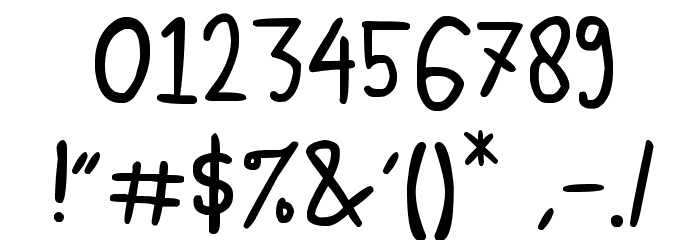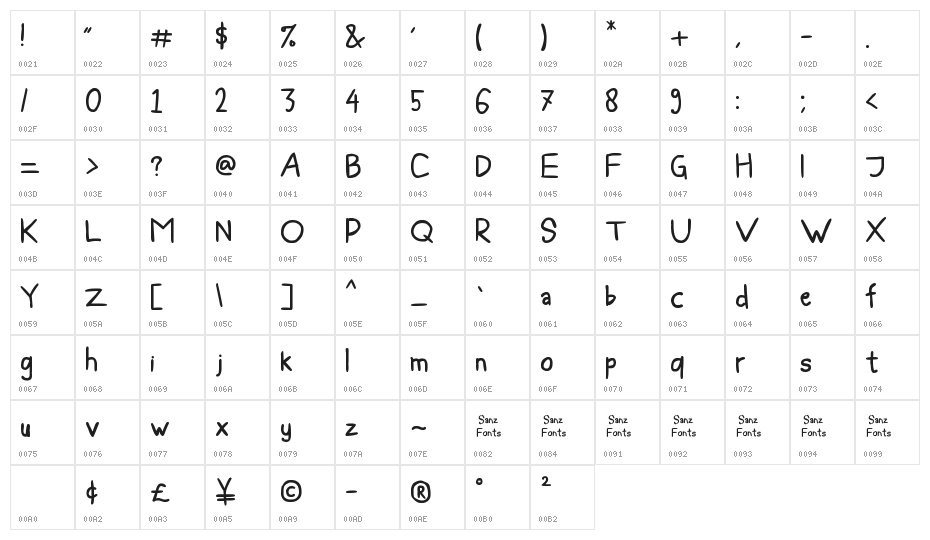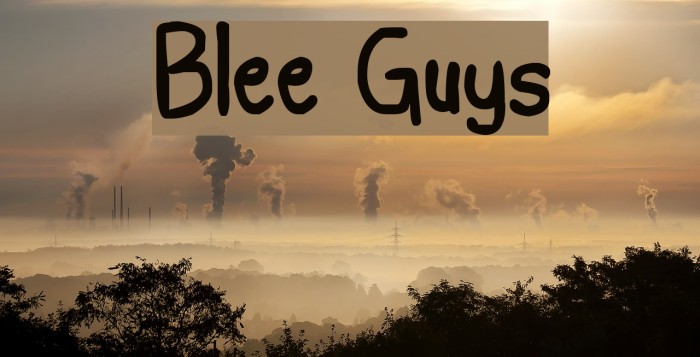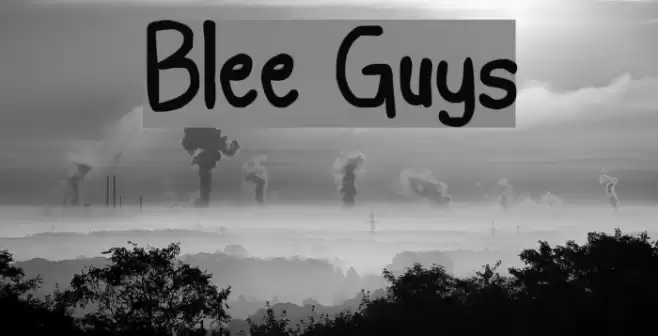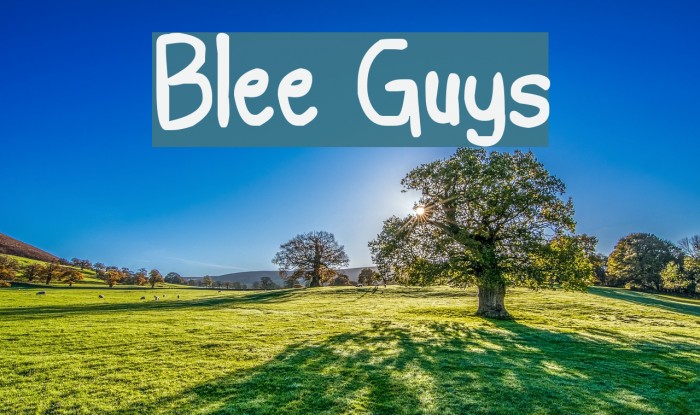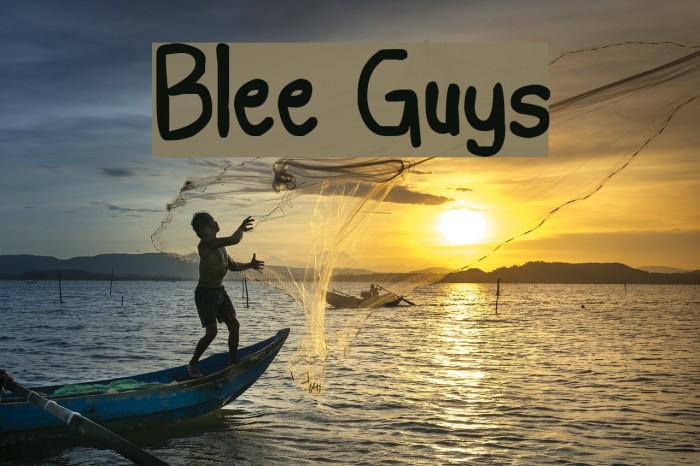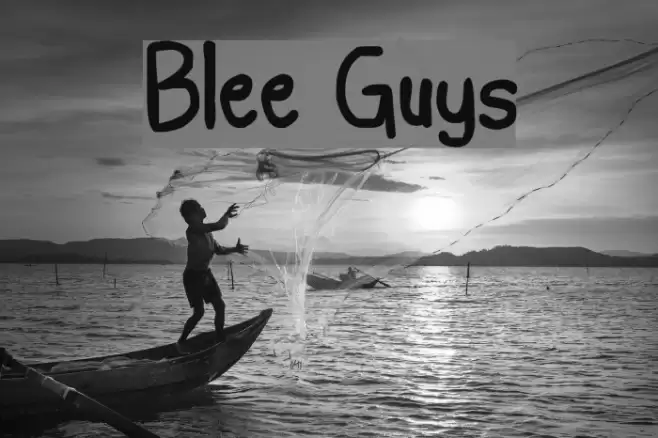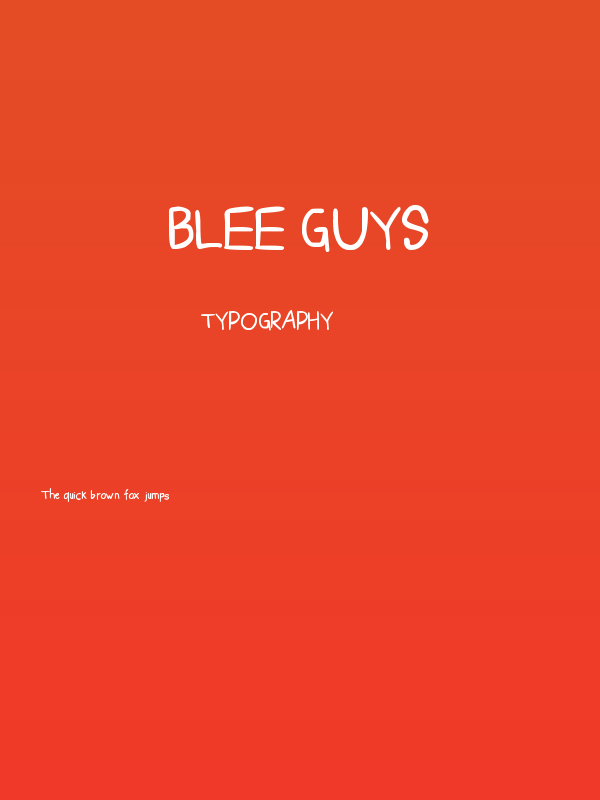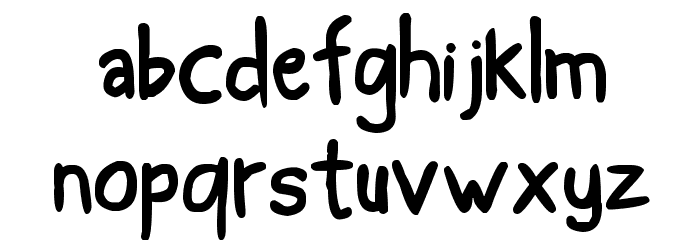
Blee Guys Font
Blee Guys Description
This playful and informal font features a handwritten style with a casual and friendly appearance. The characters are slightly irregular, adding to its charm and approachability. The uppercase and lowercase letters maintain a consistent flow, while the numerals and special characters complement the overall style. The strokes are smooth and rounded, giving a soft and inviting feel. This font is ideal for projects that require a personal touch, such as greeting cards, children's books, or playful branding. Its unique character makes it stand out in creative and informal settings.
Overall StylePlayful
Use CaseLogos, Headlines, Informal Text
Proposed ProjectsIdeal for greeting cards, children's books, playful branding, and informal invitations.